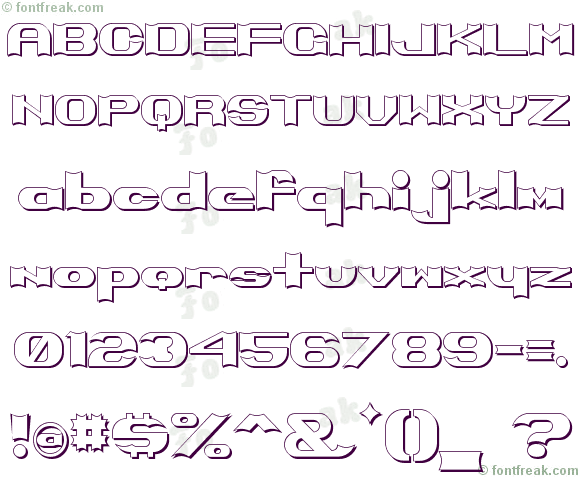
About Primo Bright
Primo Bright, designed by Greywolf Webworks in 2000, is a captivating display font that perfectly blends boldness with a playful charm. This decorative typeface features an eye-catching design characterized by its unique stroke weight and contrasting elements. The rounded edges and slightly exaggerated features create a whimsical appeal, while the overall spacing ensures readability, making it a versatile choice for various applications.
The visual characteristics of the Primo Bright font include its thick, rounded letterforms that elegantly taper at the ends, giving it a dynamic yet friendly appearance. This font also incorporates subtle decorative elements, such as playful curves and highlights, that enhance its visual impact without overwhelming the reader. The combination of these attributes makes it an excellent choice for a range of creative projects.
Primo Bright excels in applications such as eye-catching wedding invitations, vibrant movie posters, and playful restaurant menus. Its distinctive style can also elevate branding materials or promotional graphics for small businesses, ensuring that any message stands out. Graphic designers, small business owners, and content creators will find this font particularly appealing, as it adds a touch of personality to their projects while maintaining a professional look.
What sets the Primo Bright font apart is its unique ability to convey energy and enthusiasm, making it ideal for capturing attention in any medium. Whether you're designing an event flyer or a digital advertisement, this font brings a sense of joy and creativity to your work. For those looking to enhance their design toolkit, the Primo Bright font free download offers an accessible opportunity to infuse a lively spirit into their projects. Let your next design shine with the distinctive flair of Primo Bright.